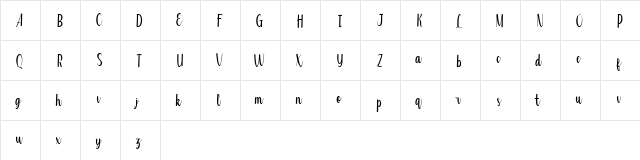
Valsday Script DEMO Regular
Design Context for Valsday Script DEMO Typeface
Valsday Script DEMO flows with the natural rhythm of handwritten lettering, making it ideal for designs that call for warmth and personal expression.
Font Pairing: Combine Valsday Script DEMO with a simple geometric sans for maximum contrast — the tension between flowing curves and clean structure is a classic typographic pairing.
Pro Tip: Use Valsday Script DEMO for short runs of text — names, titles, or taglines. Extended body copy in script faces tires the eye quickly.